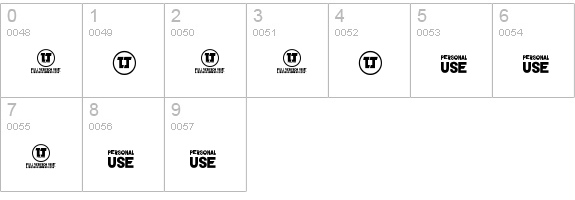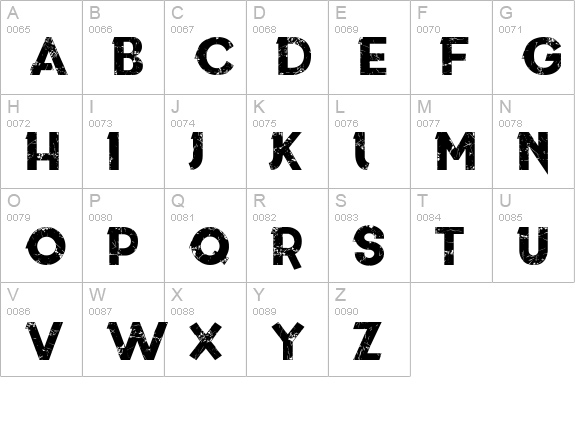
This is who we are Font Details
Introducing the captivating and expressive "This is who we are" font - a true embodiment of personality and individuality. This font embodies a unique blend of elegance, creativity, and character, making it the perfect choice for those who desire to make a bold statement with their typography. The "This is who we are" font showcases a distinctive and captivating design, with each letter carefully crafted to exude a sense of confidence and style. Its smooth curves and sharp edges create a harmonious balance, resulting in a visually pleasing and eye-catching aesthetic. But what truly sets the "This is who we are" font apart is its versatility. Whether you are designing a logo, creating a poster, or crafting a social media post, this font effortlessly adapts to any project or message you wish to convey. Its ability to seamlessly blend into any design concept ensures that your message shines through with clarity and impact. What makes the "This is who we are" font even more remarkable is the fact that it is freely available to download at FontsMarket.com. This means that you can easily access and utilize this exceptional font without any hassle or restrictions. With just a few clicks, you can infuse your designs with a touch of creativity and sophistication, all thanks to the accessibility of this font. In conclusion, the "This is who we are" font is a stunning choice for those who seek to make a lasting impression with their typography. Its captivating design, versatility, and the fact that it is freely available for download at FontsMarket.com make it a must-have for any designer or creative individual looking to elevate their projects to new heights. Embrace the power of self-expression and download the "This is who we are" font today.